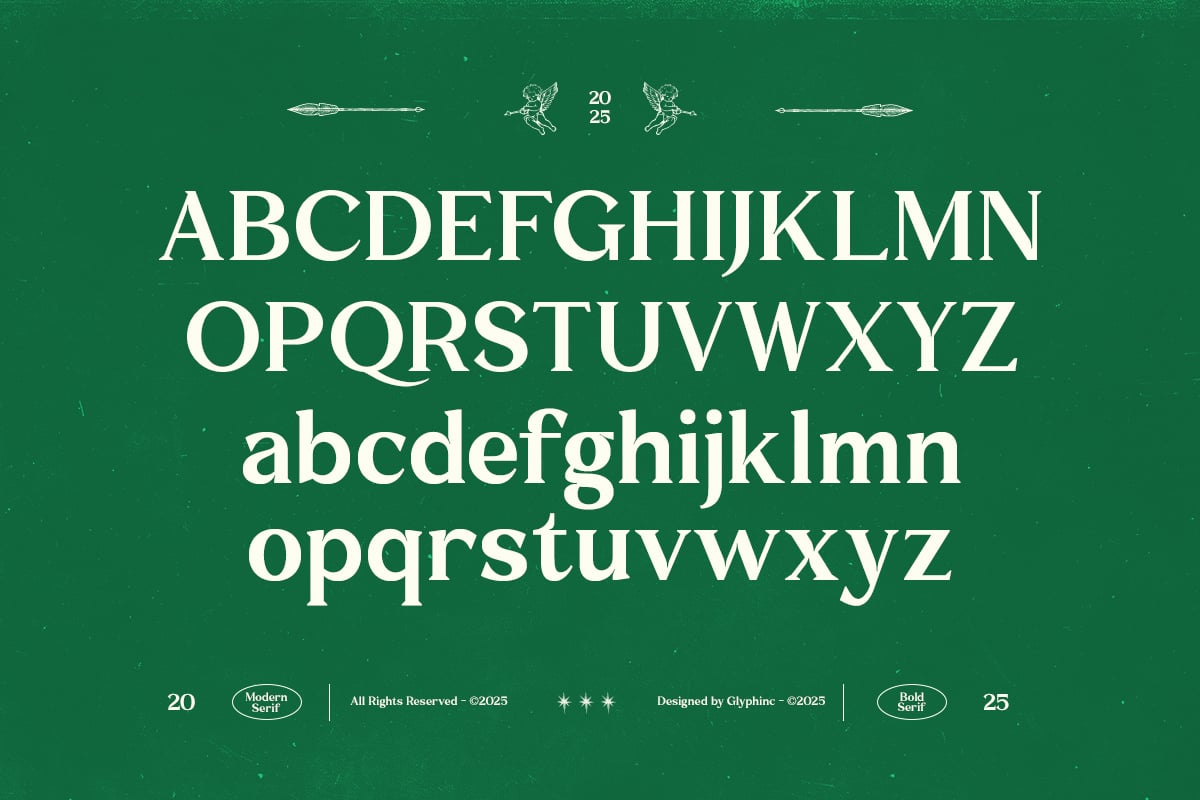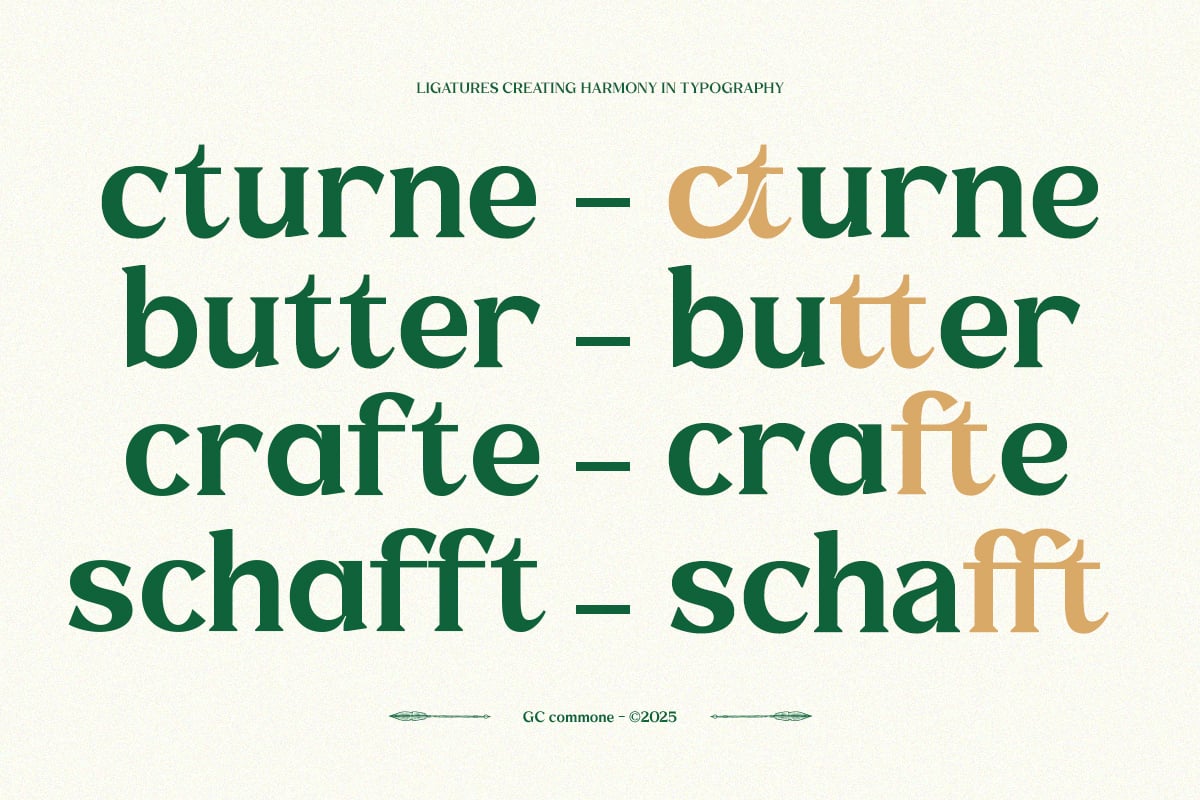
Commune – Modern Inktrap Serif Font is a versatile typeface ideal for various projects, including logos, branding, posters, blog headers, advertisements. The free version includes a full set of uppercase and lowercase letters, available in OTF, TTF format.
Commune – Modern Inktrap Serif Font